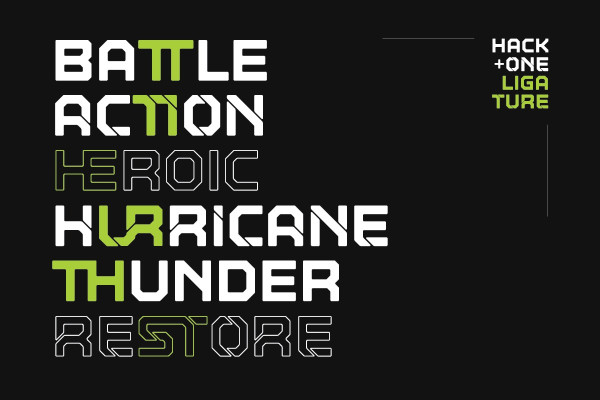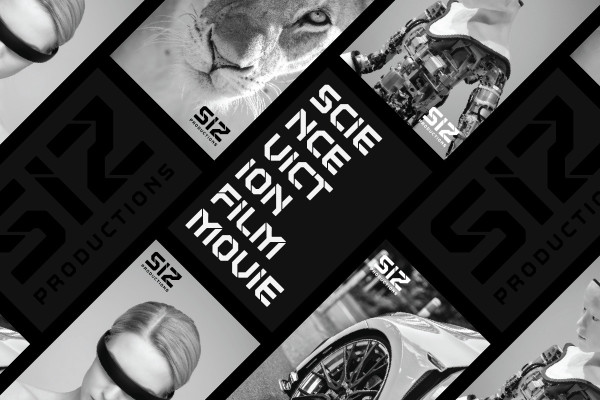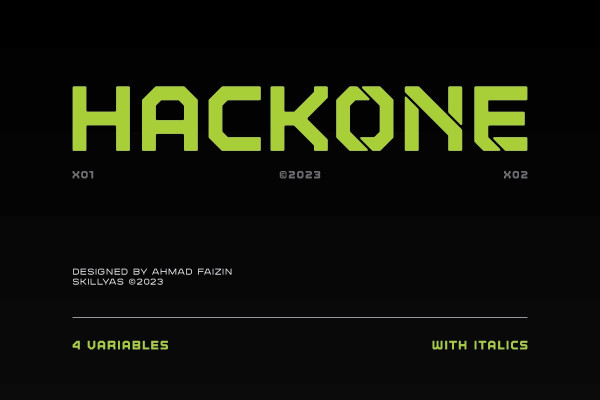
Hackone Font
Hackone Font is a cutting-edge font designed to elevate your digital projects. With its sleek and futuristic design, this font is perfect for tech-related content, software interfaces, and website headers.
Hackone comes in four variations, regular, slice edge, and outline. and also equipped with italic oblique.